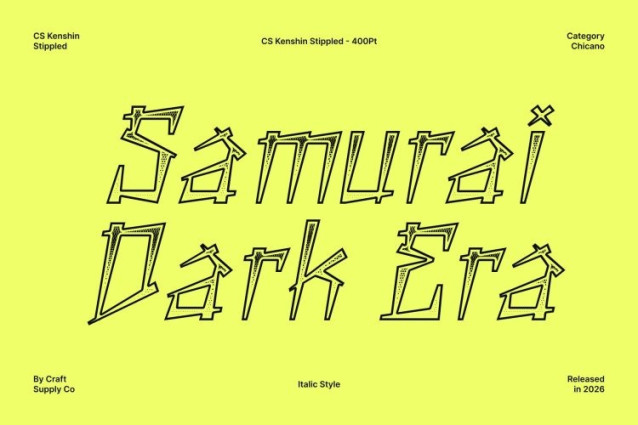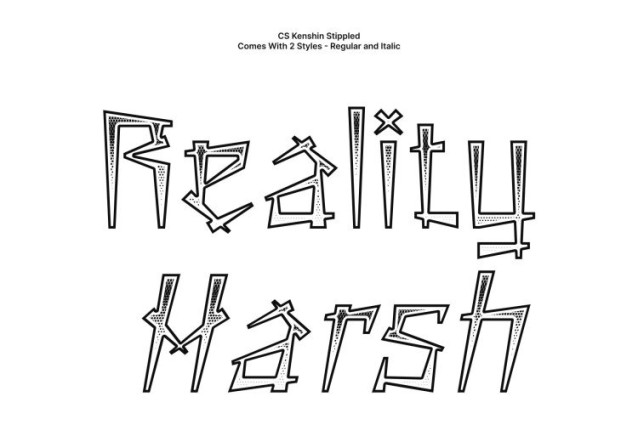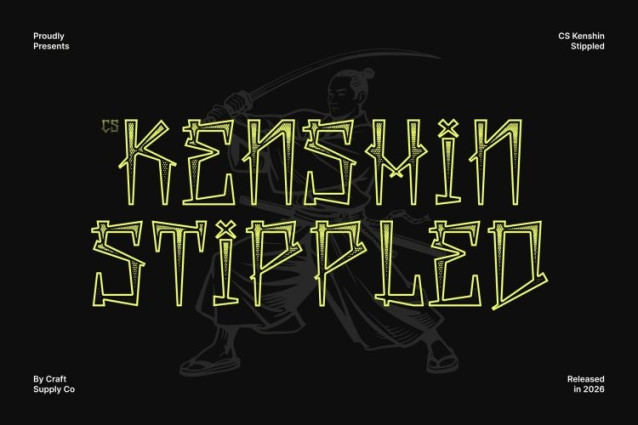
CS Kenshin Stippled Font
CS Kenshin Stippled Font – This is a dynamic and expressive display typeface inspired by the vibrant world of street art. Featuring bold letterforms, fluid curves, and intricate stippled detailing, this font captures the rebellious energy of urban culture. It blends classic graffiti aesthetics with modern design elements to create a striking and highly distinctive visual statement.
A Funky Vibe That Evokes Pride and Rebellion
Rooted in the spirit of Chicano culture, this font radiates pride, boldness, and fearless self-expression. Its lively forms and artistic character reflect the raw authenticity of street art, making it perfect for designs that celebrate individuality and attitude. The combination of strong shapes and expressive style brings an unmistakable urban personality to every composition.
Perfect for Branding with an Urban Edge
Designed to stand out in crowded visual spaces, this is an excellent choice for branding projects that demand attention. Its strong graphic presence makes it ideal for logos, posters, merchandise, album artwork, packaging, and promotional materials that embrace street culture and creative expression.